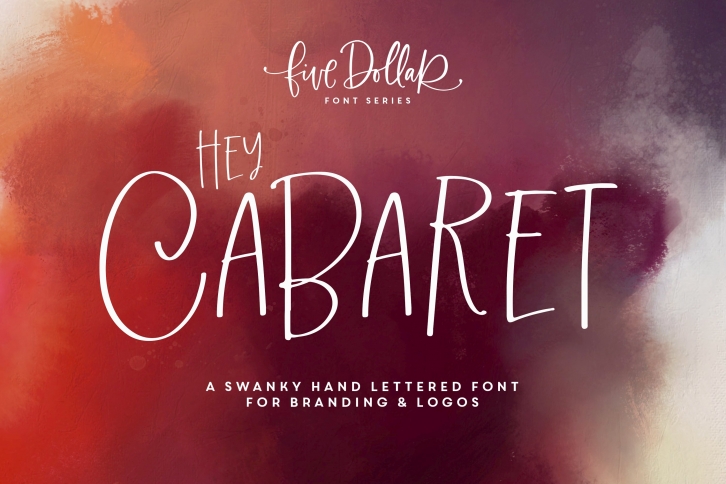
Introducing Hey Cabaret Font - a tall, skinny, swanky typeface, hand illustrated, and oh so adorable on logos and branding projects. Not bad for quotes either. 😉
- Includes select ligatures